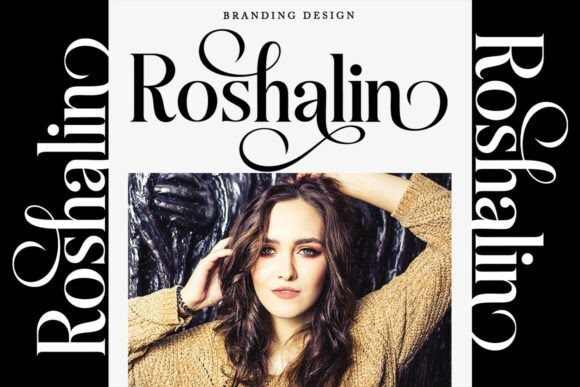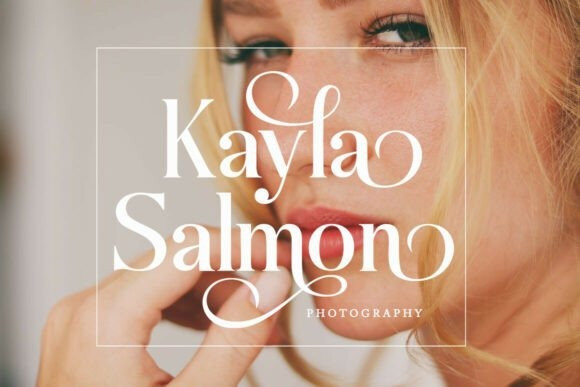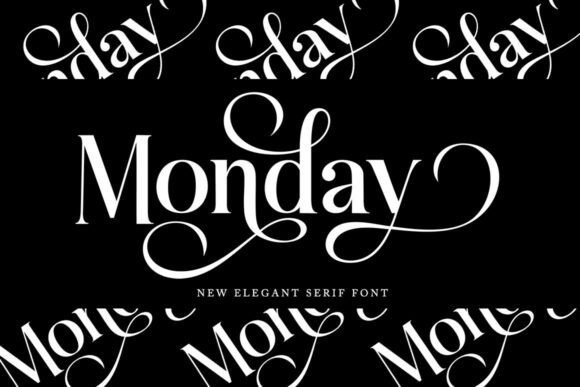
Monday Serif Font
Monday Serif Font is a beautiful, elegant, and top-notch serif font. Professionally designed to be a true favorite, it has the potential to take your creative ideas to the next level!